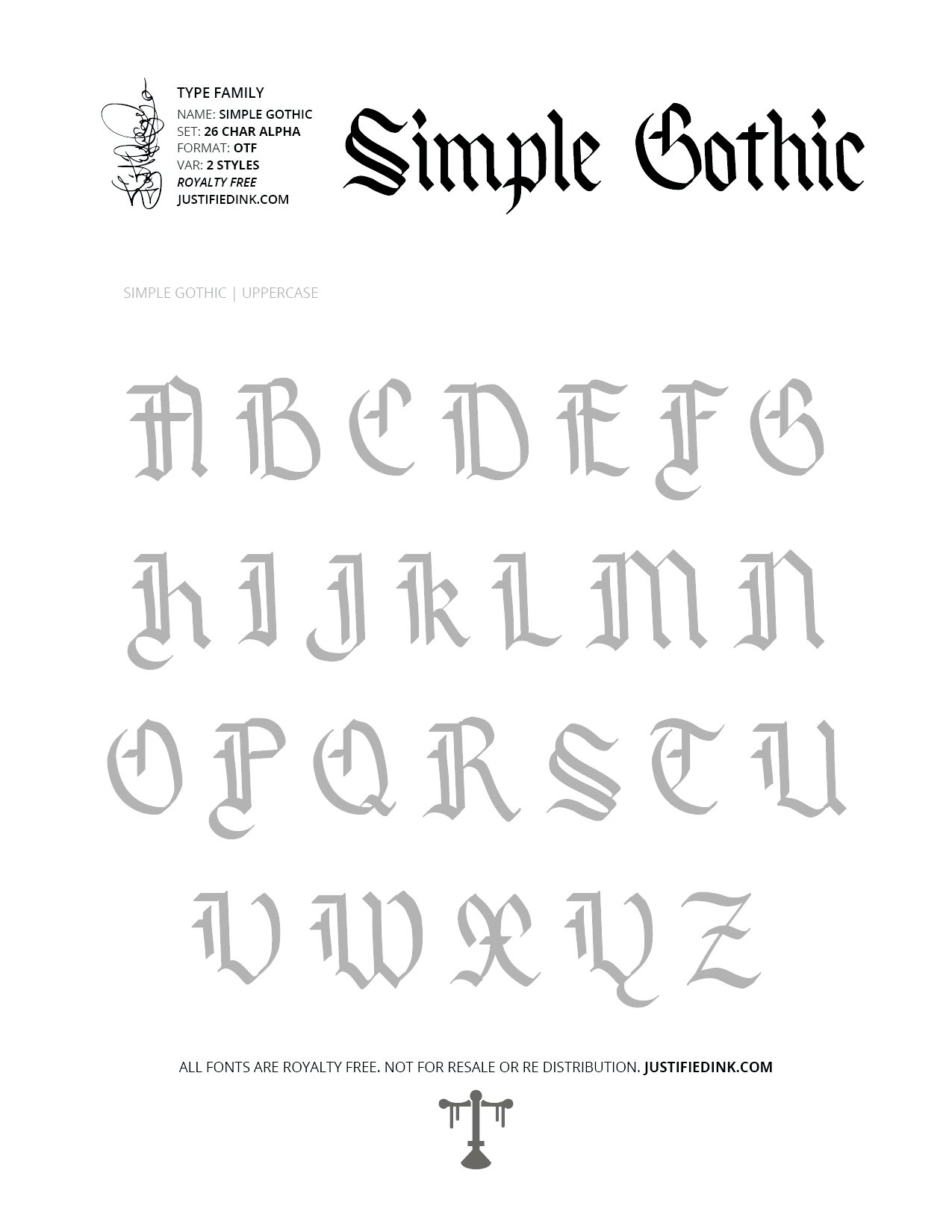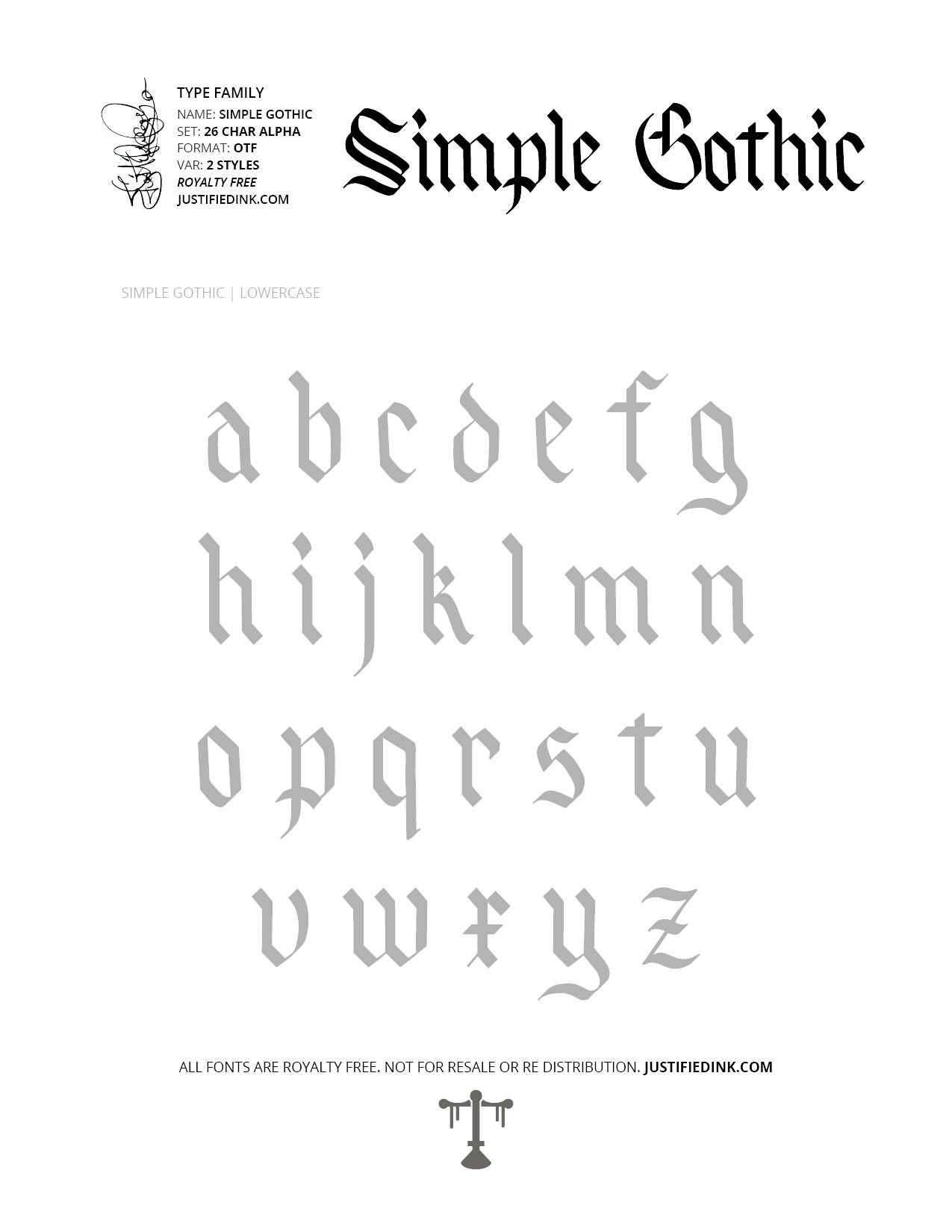
Simple Gothic (2 styles) - Custom Font by Justified Ink
A Simple gothic font that cuts just the right way. We keep it sharp like occams razor - which is that the simplest is often best.
This font is part of the collection by Justified Ink, called Blackletter III. After 15+ years creating, I began to focus on building personal libraries of my work. Blackletter III is yet another amazing collection of 30 handmade fonts. Building off of the work done to create Blackletter II, this collection is specialized where it was created digitally. This features many classic styles such as gothic, fraktur, beneventan, and uncial. Additionally, this collection contains several other styles drawn from graffiti, hiphop, and indie type styles. It comes in a full set of 26 char alpha. Each font family has variations in styles and/or non-alpha chars.